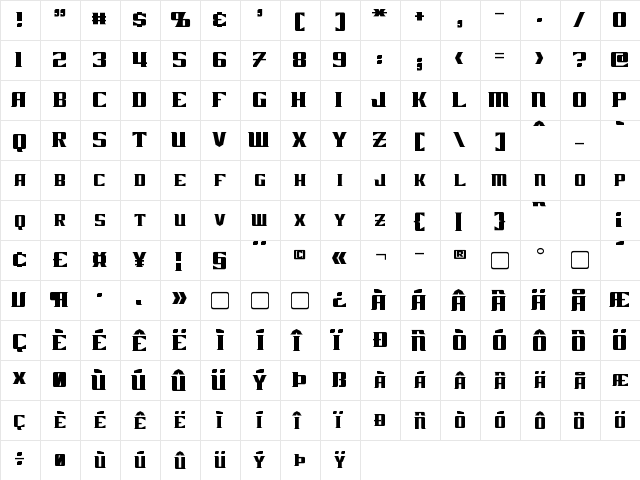
Zarathos Regular
Design Context for Zarathos Typeface
Zarathos is a composed and adaptable typeface that performs quietly and consistently across a wide range of design contexts.